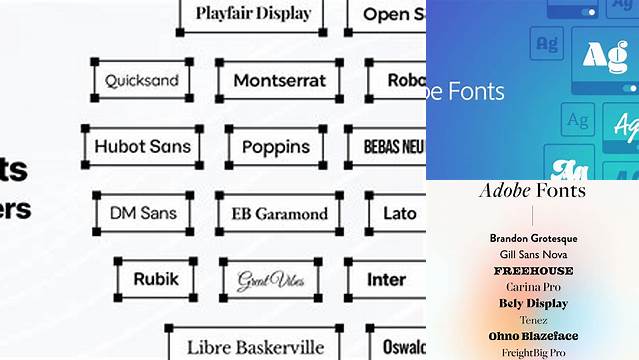
Get Awesome Web Fonts: Download From Adobe
Adobe Fonts, formerly known as Typekit, offers a vast library of high-quality fonts perfectly suited for web use. Adobe fonts download for web is a straightforward process, granting you access to a world of typography that can significantly elevate your website's design and user experience. Choosing the right fonts is crucial, as they impact readability, branding, and overall aesthetics. With Adobe Fonts, you can easily find and implement fonts that align with your project's specific needs, ensuring a professional and visually appealing website. This guide will walk you through everything you need to know about Adobe Fonts, from downloading and activation to effective usage and optimization.
H2: Unveiling the Power of Adobe Fonts for Web Design
Alright, folks, let's dive into the awesome world of Adobe Fonts! When we talk about Adobe fonts download for web, we're really opening the door to a whole new level of web design possibilities. These aren't just any fonts; they're carefully curated, high-quality typefaces designed to look fantastic on any screen. The benefits are pretty clear: better readability, a stronger brand identity, and a much more engaging user experience. Think about it: your website's font is like its voice. It communicates your brand's personality. Is it friendly, professional, edgy, or classic? Adobe Fonts gives you the tools to choose the perfect voice. Plus, they're super easy to integrate into your website. No more struggling with clunky font files or worrying about compatibility. Adobe takes care of all that for you. Using Adobe Fonts means your website will look consistent across all devices. Whether your visitors are on a desktop, a tablet, or a phone, your carefully chosen fonts will render beautifully. This is a huge win for user experience. It's also a major time-saver. Instead of scouring the web for free fonts (and dealing with potential licensing headaches), you have a vast, professionally designed library at your fingertips. This will allow you to focus more on your content and less on technical issues. Don't underestimate the impact of good typography. It can transform a so-so website into something truly special. It's about making a good first impression and keeping visitors engaged. It's about guiding the user's eye and making sure your message is clearly understood. Adobe Fonts is the key to making all that happen. Adobe Fonts has a wide selection of fonts that are optimized for web use, ensuring they load quickly and look great on any device. They are designed to be versatile and adaptable to different design needs. They are a valuable resource for any web designer looking to improve the look and functionality of their websites.
H3: Choosing the Right Fonts: A Guide for Web Designers
So, you're ready to dive into the Adobe fonts download for web world, awesome! But where do you begin? The sheer number of options can be a bit overwhelming. Don't sweat it, though. Choosing the right fonts is all about understanding your project's goals and the message you want to convey. First, consider your brand identity. What kind of personality do you want your website to project? A sleek, modern tech company might lean towards clean sans-serif fonts. A more playful, creative business might opt for a friendly, slightly quirky serif font. Once you have a sense of your brand, start exploring Adobe Fonts. Think about readability. Your body text should be easy to read at any size, on any screen. Look for fonts with clear letterforms and good spacing. It's also a good idea to choose a font with different weights and styles. This allows you to create visual hierarchy, using bold for headings and italics for emphasis. Play around with font pairings. The best websites often use a combination of fonts to create visual interest. Try pairing a strong heading font with a more subtle body font. Adobe Fonts makes this easy with its curated pairings. Consider the context of your website. Is it a blog? An e-commerce store? A portfolio? Each type of website has different needs when it comes to typography. Research what works best for your specific niche. Don't be afraid to experiment. The best way to find the right fonts is to try them out. Create a test page or mock-up and see how different fonts look with your content. The key is to experiment and see what looks best. Don't be afraid to step outside of your comfort zone and try something new. The right font can greatly improve the look and feel of a website. Adobe Fonts offers a wide variety of typefaces, making it simple to choose one that complements a brand's overall identity.
H2: Downloading and Activating Adobe Fonts for Your Website